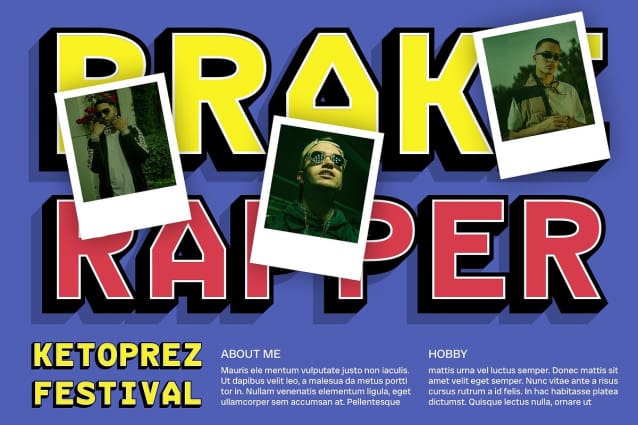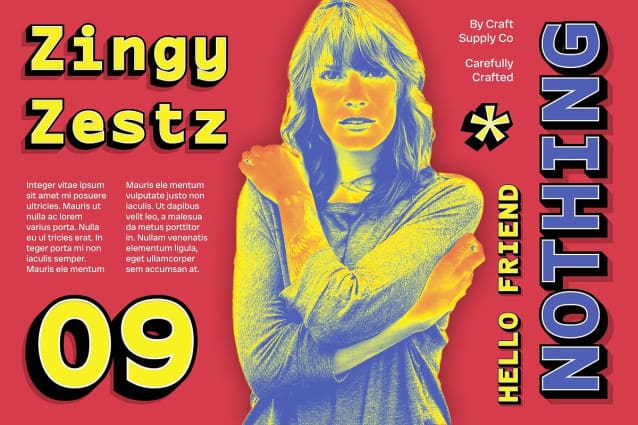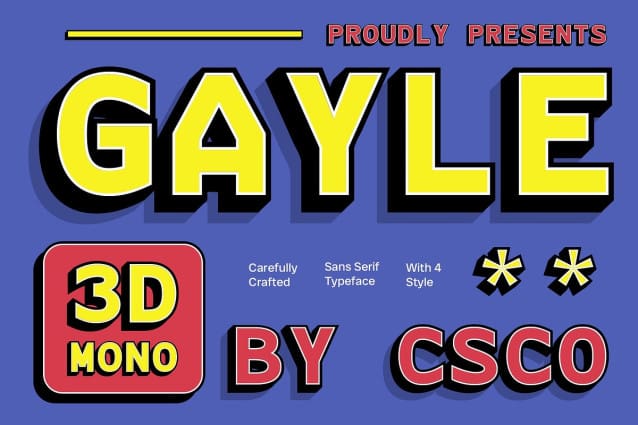
CS Gayle Mono 3D Font
CS Gayle Mono 3D Font combines the clarity and precision of a monospaced font with the visual appeal and modernity of a 3D effect. Its sans-serif style and three-dimensional appearance offer various compelling applications in design, making it suitable for technical illustrations, diagrams, user interface design, posters, and graphics related to technology or hackathons.
With its versatile design, CS Gayle Mono 3D Font is suitable for a variety of uses across different design fields. Its clean lines and 3D effect add depth and visual interest to any project, ensuring that your designs are both functional and visually appealing.
CS Gayle Mono 3D Font prioritizes technical appeal, making it ideal for projects that require precision and clarity. Whether used in print or digital media, this font adds a modern and technical element that resonates with viewers and enhances the overall aesthetic of your designs.
Whether you’re creating technical diagrams, designing user interfaces, or developing posters for technology-related events, this font offers a versatile and modern solution. Its combination of monospaced clarity and 3D visual appeal ensures that your designs will stand out and leave a lasting impression.